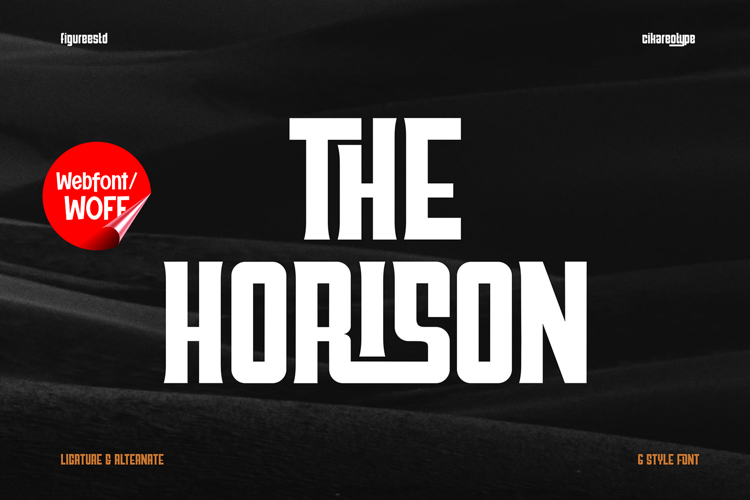
The Horison | Classy Logotype Webfont for Elegant Websites
The Horison is a classy and refined webfont designed to elevate the visual identity of modern websites. With its elegant letterforms and carefully crafted details, this logotype-style font is perfect for brands that want to express sophistication, professionalism, and timeless style. Whether used for luxury branding, portfolio websites, fashion platforms, or premium business pages, The Horison delivers a polished and memorable look.
The Horison features a complete set of uppercase and lowercase characters, offering versatility for various design needs. The uppercase letters provide a strong and elegant presence, ideal for headlines, logos, and branding elements. Meanwhile, the lowercase characters add balance and readability, making longer text elements feel smooth and visually appealing.
In addition, this font includes numbers and punctuation, allowing for consistent usage across different sections of your website. From pricing tables and contact information to navigation menus and content blocks, The Horison ensures every detail looks cohesive and refined. Each character is designed to harmonize with the overall style, maintaining a clean and luxurious appearance.
One of the standout features of The Horison is its alternates. These alternate characters provide additional stylistic options, enabling you to customize your typography and create unique logotypes or headlines. With these variations, you can experiment with different looks while keeping a consistent visual identity, making your brand more distinctive and expressive.
The Horison also supports multiple languages, making it suitable for international projects. Its multilingual support ensures that your website can communicate effectively with a wider audience while maintaining the same elegant style across different languages. This is especially valuable for global brands, agencies, and businesses that operate in diverse markets.
This webfont is highly suitable for a wide range of website applications, including luxury e-commerce stores, creative portfolios, corporate websites, editorial layouts, and high-end product presentations. Its classy and modern design helps create a strong first impression, encouraging visitors to explore further and engage with your content.
The Horison combines elegance with usability, making it a reliable choice for anyone looking to enhance their website’s typography. Its smooth curves, balanced spacing, and stylish alternates bring a sense of refinement to every project. If you want a webfont that communicates class, clarity, and professionalism, The Horison is the perfect addition to your design toolkit.